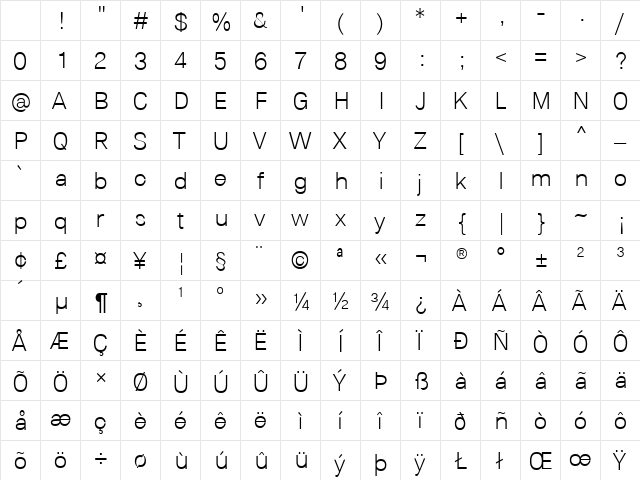
Lunchtype22 is a composed and adaptable typeface that performs quietly and consistently across a wide range of design contexts. Its slender proportions lend an understated elegance to any composition.
Pro Tip: Use Lunchtype22 in both headline and body roles to test its range before committing to a single application.